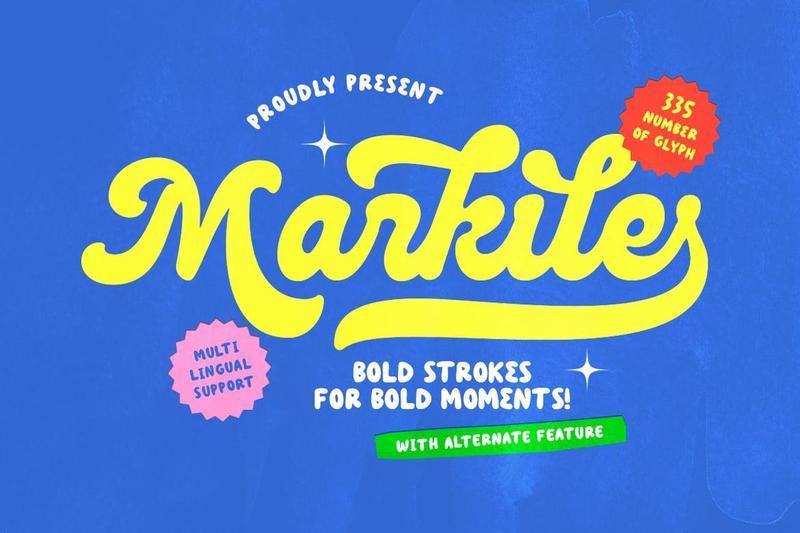
Markile – Bold Rounded Script U7MQV4U
Markile is a bold script with rounded shape. This script is suitable for logotype, branding, or quotes. With bunch of alternates that you can use with opentype features, you can make your designs more stunning and fancy. And you will get OTF/TTF file that you can install and use in any software designs especially Adobe Photoshop and Adobe Illustrator. Markile also support multi language.